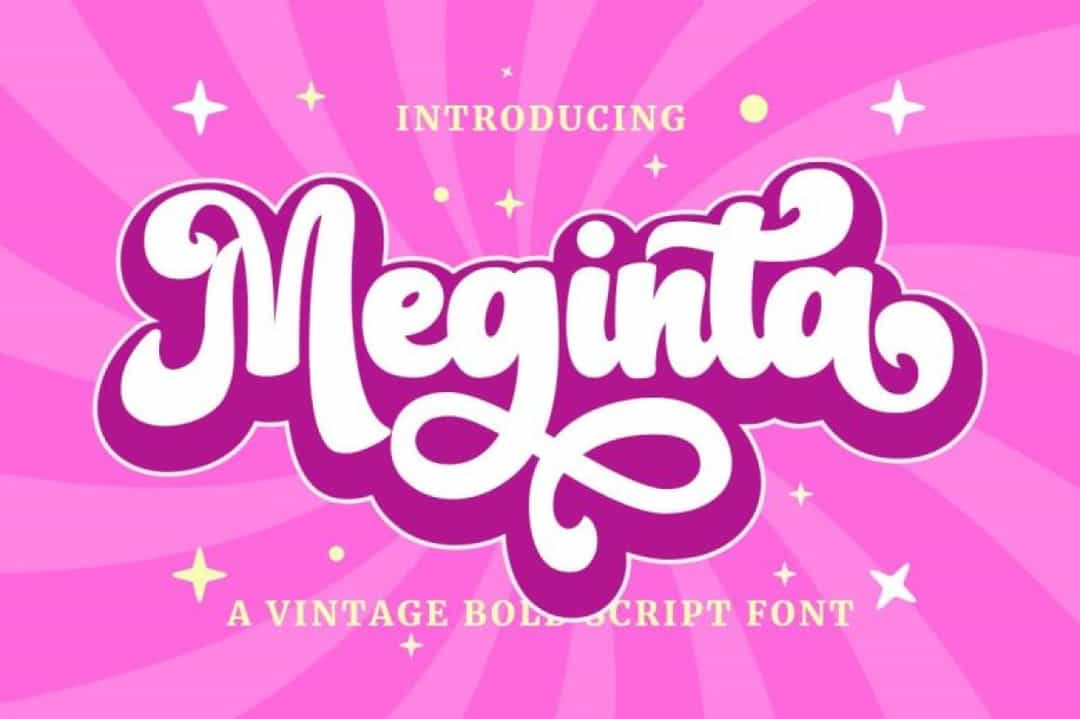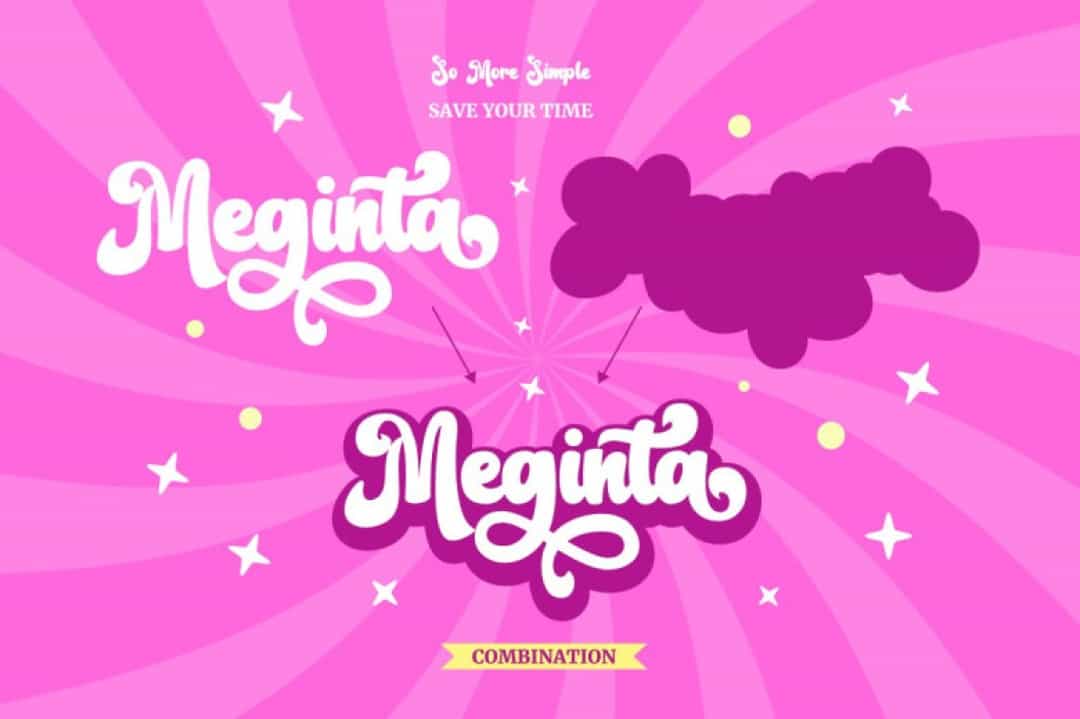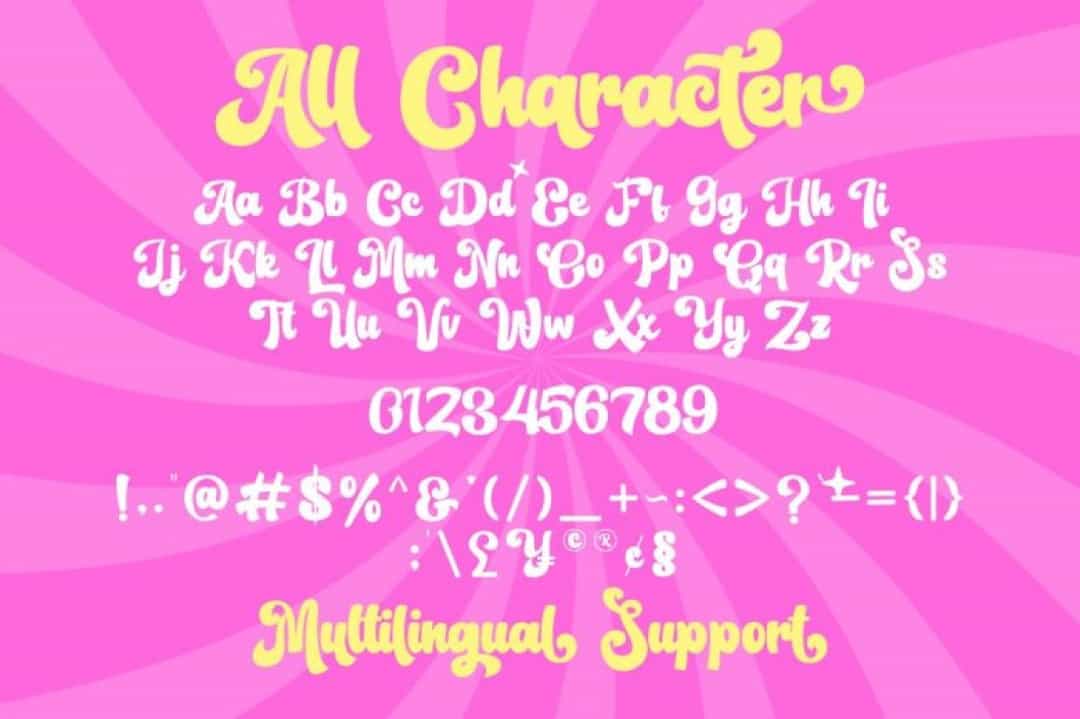
Discover Meginta Font, part of the Calligraphy Retro Vintage collection—a versatile and unique font perfect for adding a personal touch to your projects. Download it for free and enjoy crafting designs with style, from invitations to social media posts. This font is available exclusively for personal use, giving you the freedom to create without limits. Unlock your creativity with Meginta Font today!
Do you crave vintage flair in your designs? Meginta font can help. Blending classic and contemporary elements, this vintage-inspired font adds each word with strong personalities that keep readers intrigued. Each letter of Meginta has been meticulously hand-carved by artists to become striking pieces of artwork; while its elegant handwriting creates an old-school aesthetic while adding extra dimension.